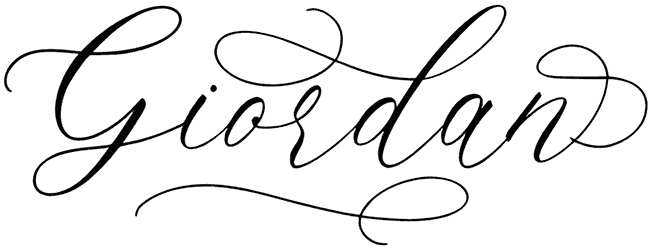
Giordan Font
If you are aiming to create gorgeous typography, it would be a very smart and great idea to consider adding a minimalist tattoo font. This Giordan font that we are introducing to you has all slim handwritten characters that are stunning and have a romantic look.
The letterforms are very classy and fashionable. Giordan doesn’t contain a complete set of numbers, unfortunately, but it includes extra swashes that are neat. It’s best for branding, weddings, logos, magazines, and more.